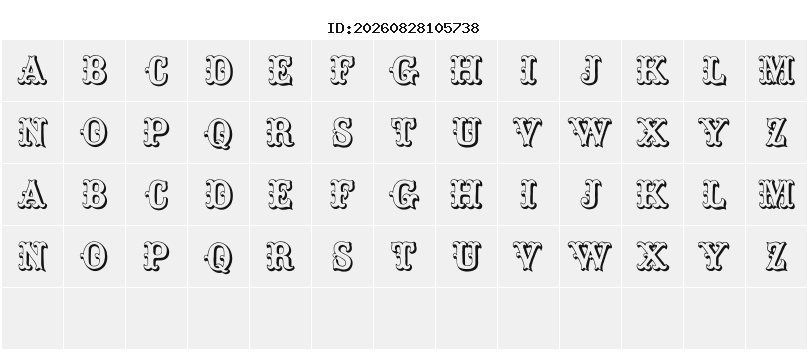
• Font Name: Toskanische Egyptienne Initialen
• Designer: Digitalisiert durch Dieter Steffmann
• Manufacturer: Typographer Mediengestaltung
• Description: Plastische Toskanische Egyptienne-Initialen nach Vorlagen der Schriftgiesserei Schelter & Giesecke, 1889